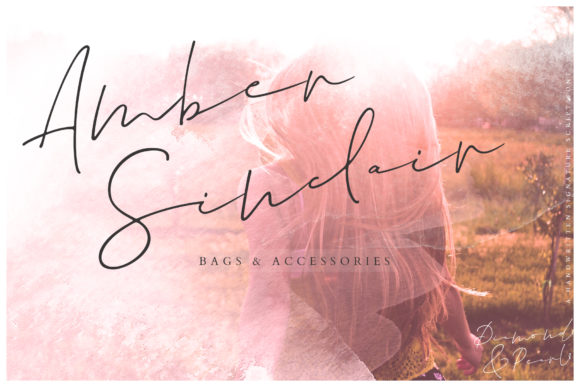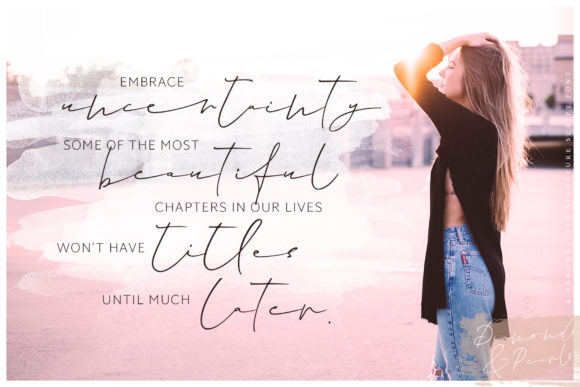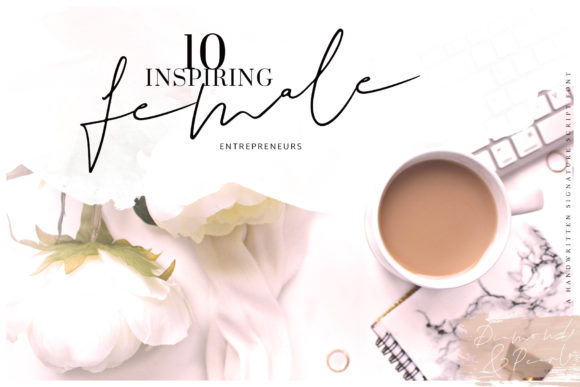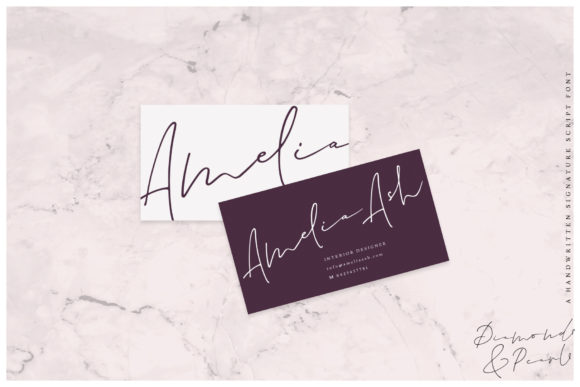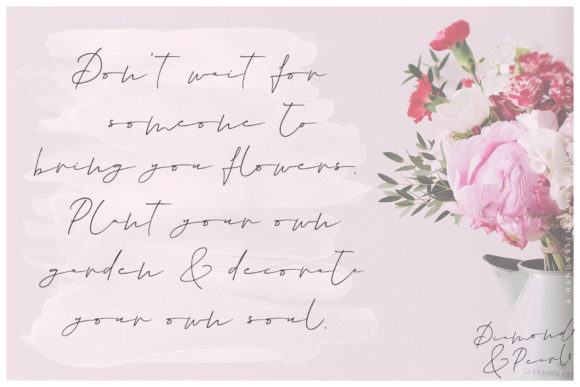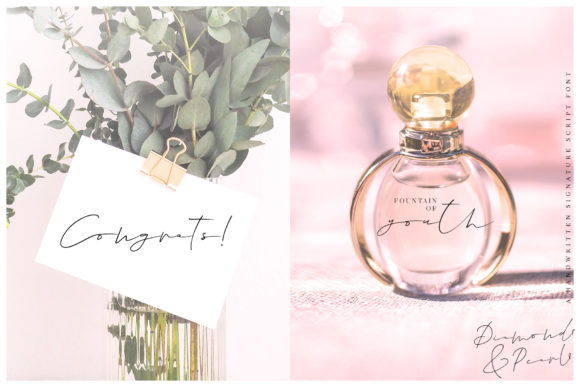
Introduction to Diamonds & Pearls Font
The Diamonds & Pearls is a luxurious and carefree signature script font that was lovingly created by hand.
Included are stylish ligatures that perfectly recreate the โhandwrittenโ feeling .